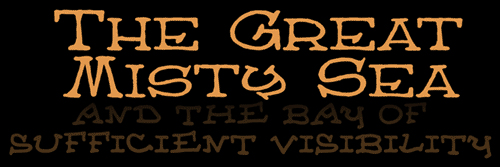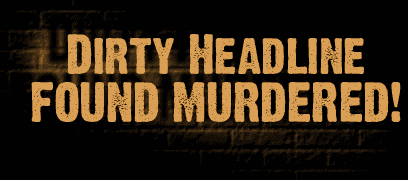
| Atlas
of the Magi is wide, handmade font I designed
for cartographic labeling in Uresia: Grave of Heaven. It
has a homey, soft feel to it that blends well with woodcut or scratchboard
styles. The goofier Almanac
of the Apprentice is a playful, somewhat dysfunctional cousin. Both
Punkinkhead It's a font full of punkinheads! But it's not just a dingbat font, it's a sneaky collection of Jack-O-Lantern templates that you can print and use. The documentation includes lots of handy tips on Jack-O-Lantern carving and preservation, too, so you'll be psyched and ready to cut gourd. Freeware.
Martian Hull Markings is a freeware"alien alphabet" font in two styles, Regular and Gloopy. . . . Mars needs women, and this is the alphabet they're sporting this year on their hotrod flying saucers! The font is monospaced, with 26 characters, mapped to the normal (lowercase) alphabet, A through Z.
Archipelago is a very silly (freeware) font where all the letters and numerals are drawn as islands! It would make for a wonky logo, but I actually use it as a mapping font: by layering the letters over one another in unusual ways, I can quickly create any sort of continental outlines I need, and they still have a hand-drawn look. The lowercase letters are solid; the uppercase are hollow outlines (composite shown).
Hultog is a freeware "antiqued" font inspired by an old Venetian-style typeface. For my fantasy campaign, I wanted an antique font that wasn't quite as grungy as most of the ordinary ones, and one that felt a little more turn-of-the-century and a little less medieval or Victorian. I've used it extensively in map-labeling since, and Visionary Games laid out their entire Archangel RPG in it. You can also snag the engraved and snow-cap variants.
Prison Walls and Uneasy are my ventures into the chaotic realm of pure-madness scribbled fonts. The first font, as the name implies, screams out from within solid boundaries, while the second is open, disturbed, and jittery.
Vermin Magic is another experiment with hand-drawn type taking letterform inspiration from minimalist, legible digital type. In this case, I drew inspiration from a tiny videogame font, and doodled from there to give it sharper points, looser curves, and a funky blend of the warm and the sinister. Freeware.
Cup and Talon is some truly humble hand-calligraphy given a dash of redemptive style with some vertical-scrape texturing and a bit of digital smoothing and rescaling. It's pure low-fi fantasy gaming, named after my oldest campaign fantasy tavern (and it's appeared on signage in the Nodwick comic, so this apple isn't meant to fall far from the tree). Freeware.
Deco Freehand is a grungy, messy deco font I sketched out with a permanent marker on paper with a lot of bleed. When adapting the sample to font form, I decided to keep the rough edges. Mostly just a font-building exercise, but it has a bouncy kind of fun to it. Sand in the face of symmetry! If cavemen liked deco! It's seen some commercial use as part of an unusual hybrid art-soap-and-tea project, too. Freeware.
The Alchemist is the handwriting of an odd fantasy-world character. But it's a character who lives in the fantasy city Hultog is named for (which is in the same campaign as Wolves & Ravens) so, clearly, a pattern is emerging, here . . . Freeware.
Dirty Headline In a universe of stressed poster fonts with sharp edges, I needed a stressed poster font with slightly blotted edges. I built it for Fly From Evil, my crime-drama RPG, but it's been used worldwide by musicans, sports teams, state lotteries, book publishers, filmmakers, candy companies, at least one dairy, a bank, a French supermarket chain and more (and Fly From Evil still ain't done)! Includes a full alphabet and numeral set (small-cap), and stuff (version 2.0 includes a full U.S. keyboard, euro, yen, pound sterling and more).